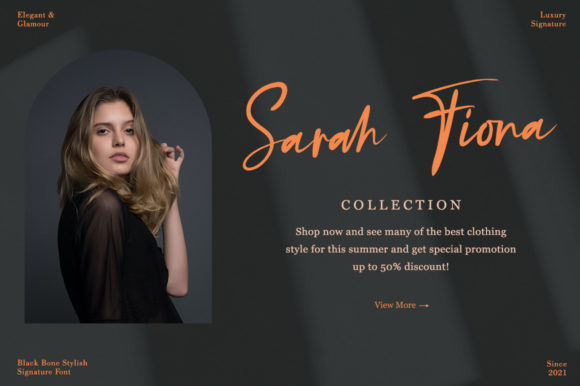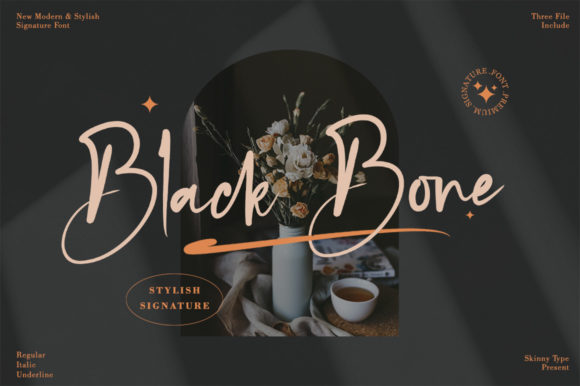
Black Bone Font
Black Bone is a lovely and delicate script font that exudes elegance and class. This font was particularly crafted for those who need a beautiful and refreshing look to their designs. Black Bone is PUA encoded which means you can access all glyphs and swashes with ease!